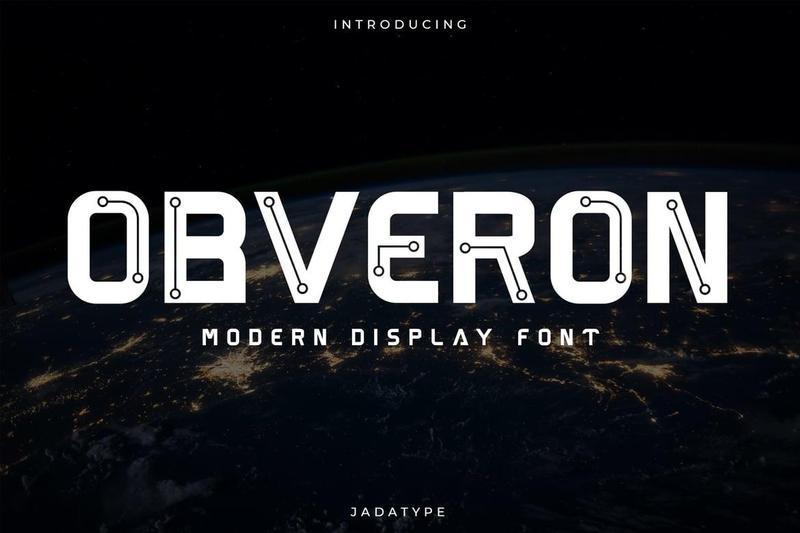
Obveron Font 8DKBAY4
Obveron is a futuristic display font featuring geometric and technology-inspired letterforms designed for modern visual communication. Its bold and distinctive appearance makes it suitable for gaming titles, sci-fi themes, technology branding, esports graphics, posters, social media content, logos, and digital design projects. The font includes multilingual support, numbers, punctuation, and stylistic details that enhance futuristic typography.
Standard uppercase and lowercase letters
Numbers and basic punctuation
Futuristic geometric display letterforms
Several accented characters for multilingual support